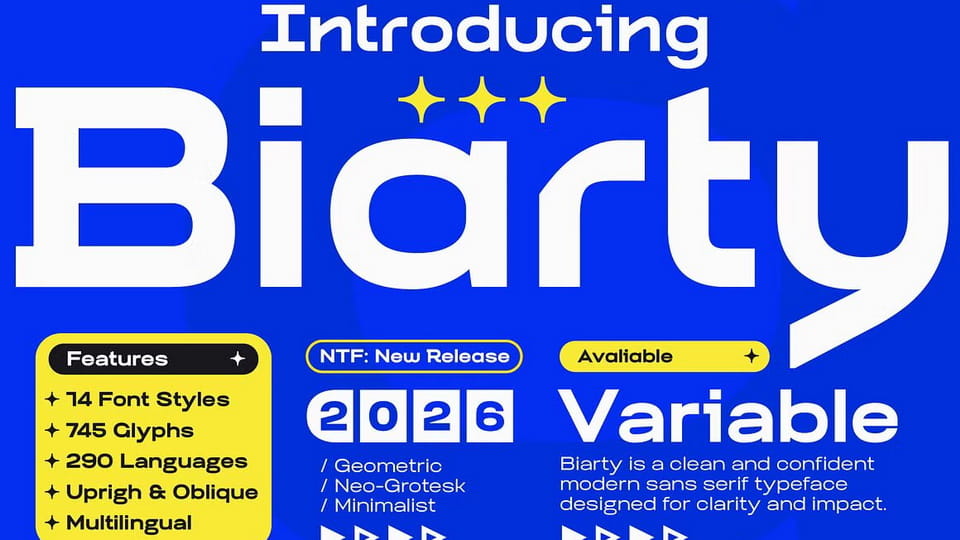
Download Biarty font, a contemporary sans-serif typeface that masterfully blends geometric precision with neo-grotesque simplicity, designed to deliver a clean, confident, and forward-looking aesthetic
Designer: Akhmad Hidayat